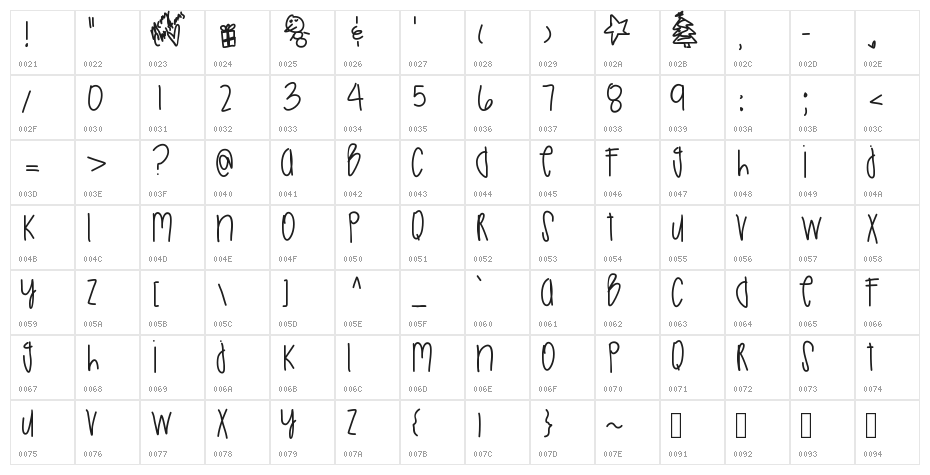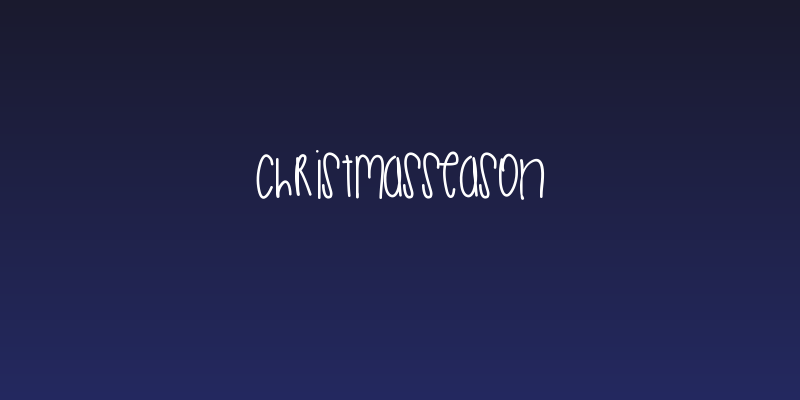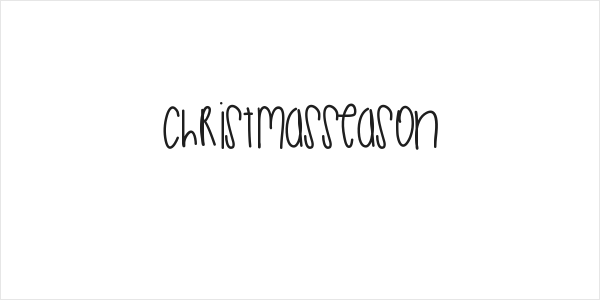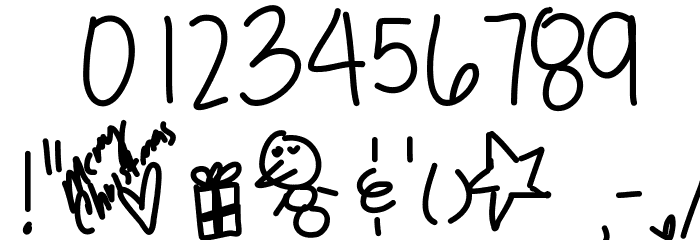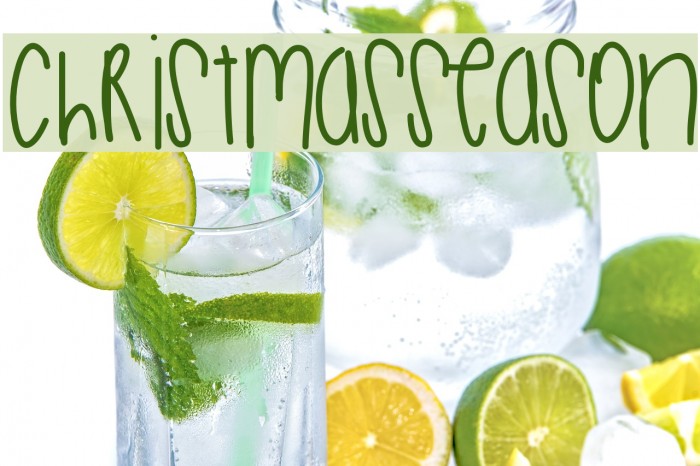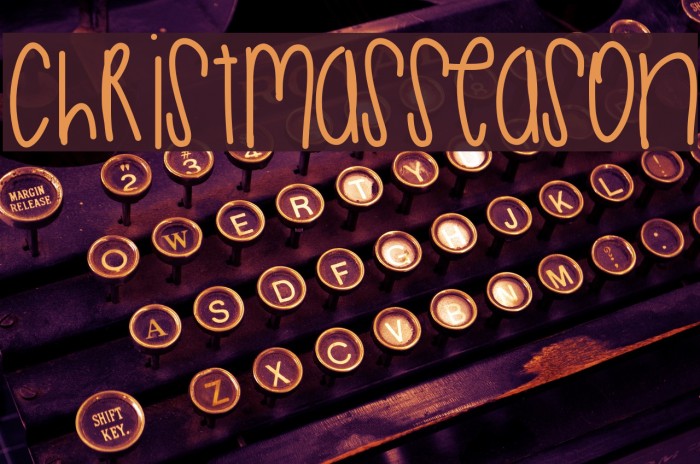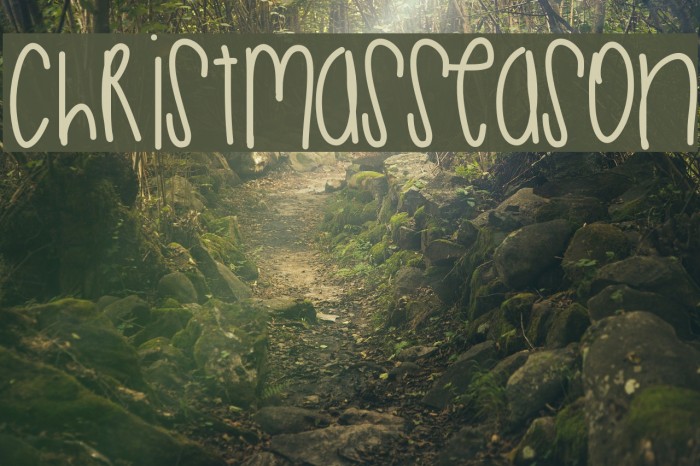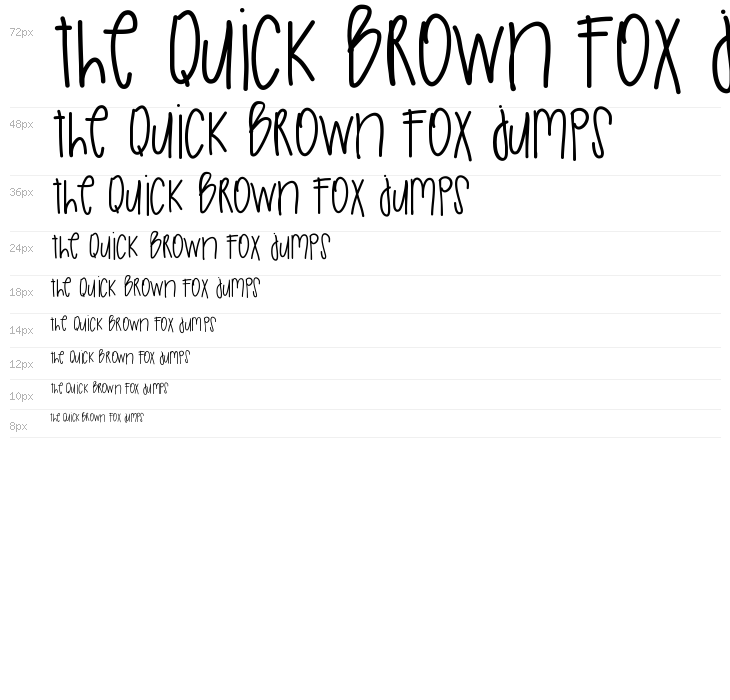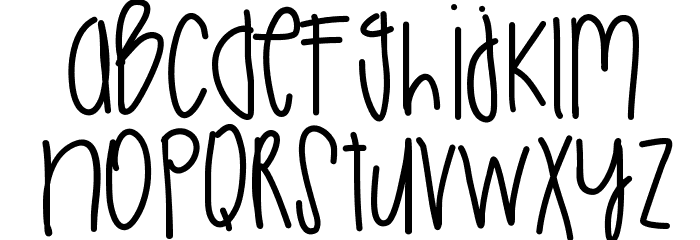
ChristmasSeason Font
ChristmasSeason Description
This playful and whimsical font features a handwritten style with tall, narrow characters that convey a sense of fun and creativity. The letters are slightly irregular, adding to the charm and personal touch of the design. The font includes both uppercase and lowercase letters, numbers, and a variety of special characters, making it versatile for various uses. The strokes are consistent in thickness, providing a uniform appearance across all characters. The overall look is casual and friendly, perfect for projects that require a personal or festive touch.
| Use Case | Headlines, Invitations, Greeting Cards |
| Proposed Projects | Ideal for holiday cards, invitations, children's book covers, festive posters, and playful branding. |